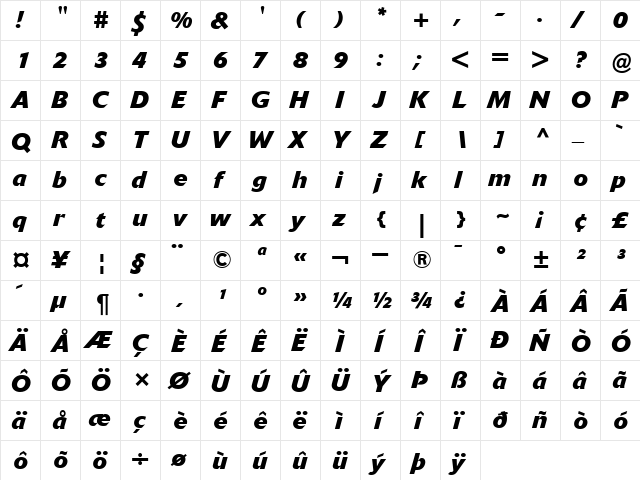
DeltaJaeger BoldItalic
Design Context for DeltaJaeger Typeface
DeltaJaeger is a composed and adaptable typeface that performs quietly and consistently across a wide range of design contexts. The dynamic lean of this cut emphasises speed and emphasis in any layout. Its bold stroke weight gives it real presence on the page.
Pro Tip: Try DeltaJaeger for annotation and caption copy alongside an upright companion — the contrast in angle creates a dynamic but ordered typographic system.